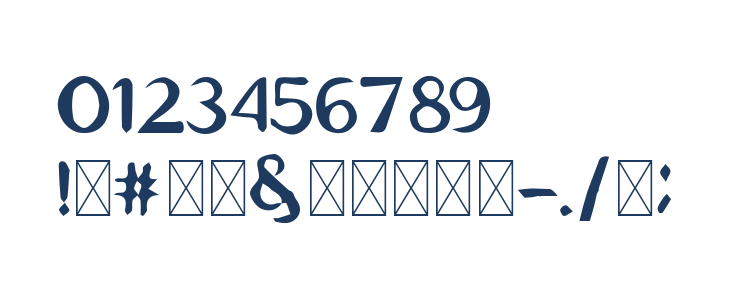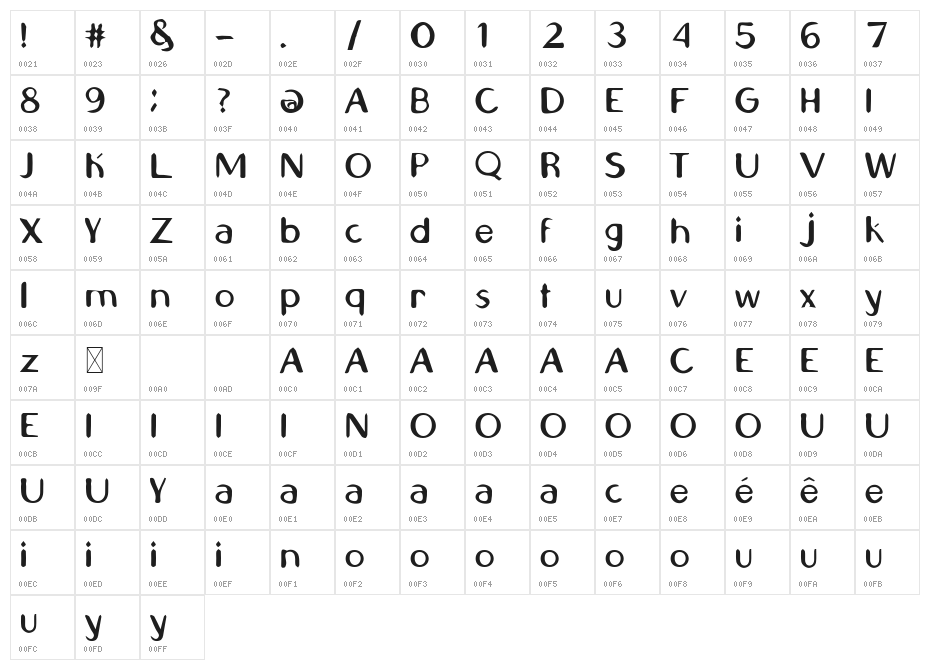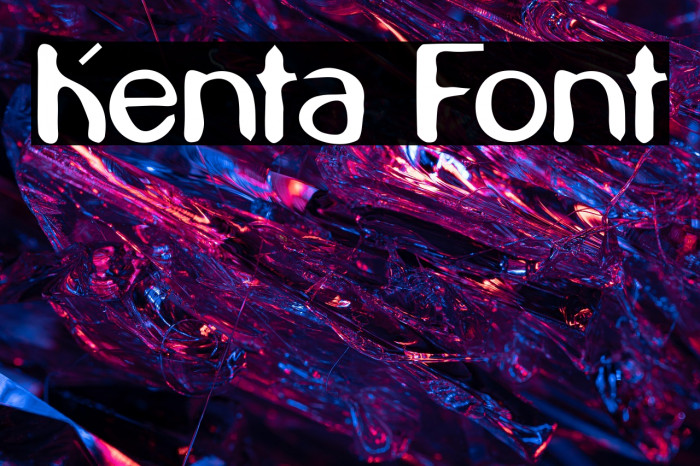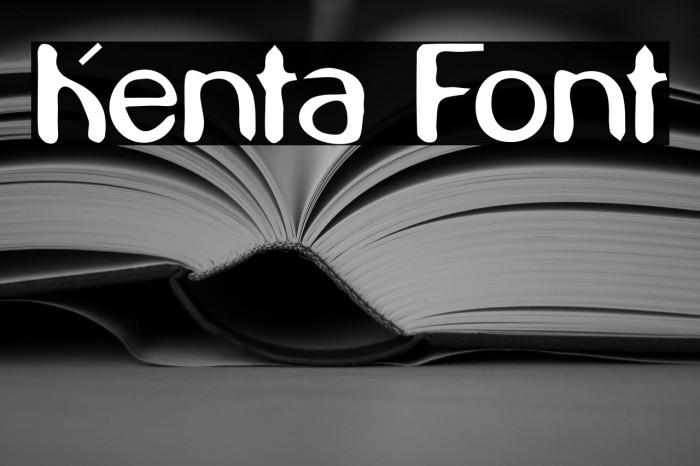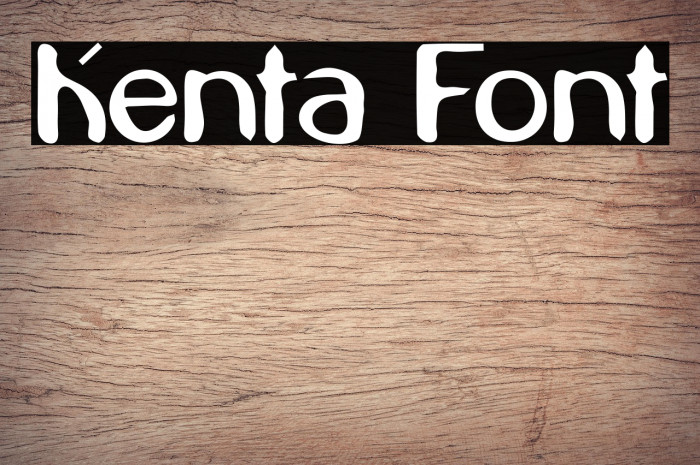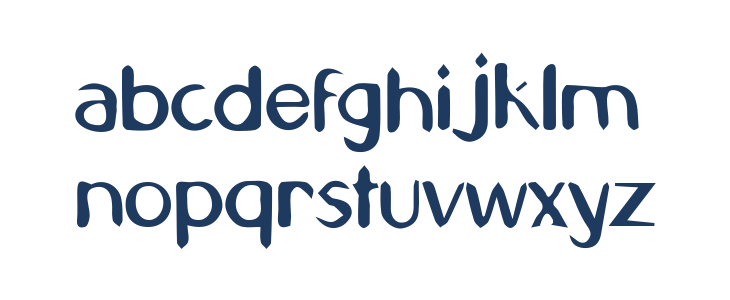
Kenta Font
Kenta Description
This font features a unique and artistic style with a playful and slightly irregular form. The characters have a hand-drawn appearance, giving them a whimsical and creative feel. The strokes are bold and varied, with some letters having thicker lines and others more slender, creating a dynamic visual contrast. The overall design is both modern and artistic, making it suitable for projects that require a touch of creativity and individuality. The font includes a full set of uppercase and lowercase letters, numbers, and a selection of special characters, all maintaining the same distinctive style.
| Overall Style | Artistic, Playful |
| Use Case | Headlines, Logos, Creative projects |
| Proposed Projects | Ideal for creative projects such as children's books, artistic posters, branding for creative businesses, and unique packaging designs. |